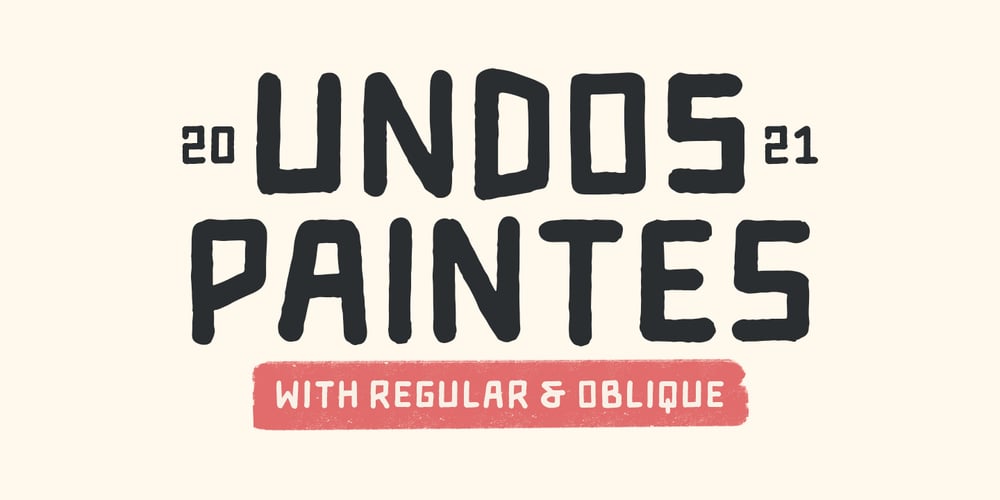
Undos Paintes
Undos Paintes font
Undos Paintes Font Family was designed by Bagas Ardiatma and published by Trustha. Undos Paintes contains 2 styles and family package options. Undos Paintes is a handwritten font inspired by the industrial feel. Comes in two font styles, regular and oblique. Undos Paintes is suitable for branding, advertising, headlines, and many more.